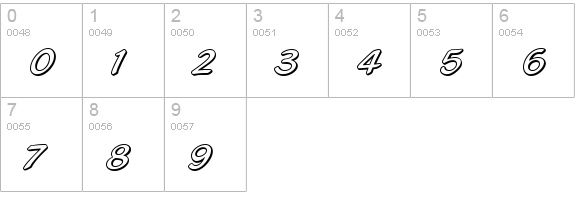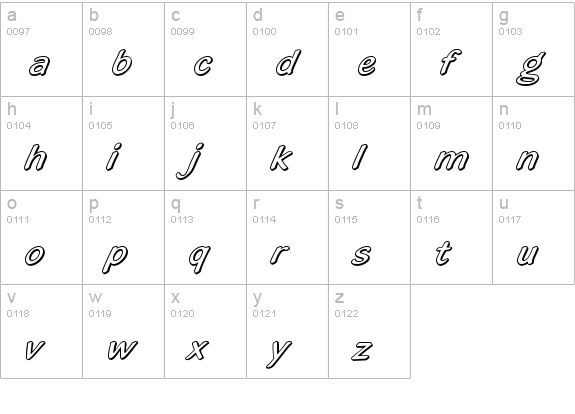
Highlight LT Font Details
Introducing Highlight LT font, a versatile and modern typeface that is perfect for adding a touch of sophistication to your design projects. With its clean lines and elegant curves, Highlight LT font exudes a sense of style and professionalism. Whether you are creating a logo, branding materials, or website design, this font will help you stand out from the crowd. The best part? Highlight LT font is completely free to download at FontsMarket.com. Yes, you read that right - you can access this beautiful font at no cost, making it a valuable addition to your font collection without breaking the bank. Don't miss out on the opportunity to elevate your designs with the sleek and contemporary look of Highlight LT font. Download it today and start creating stunning visuals that leave a lasting impression.